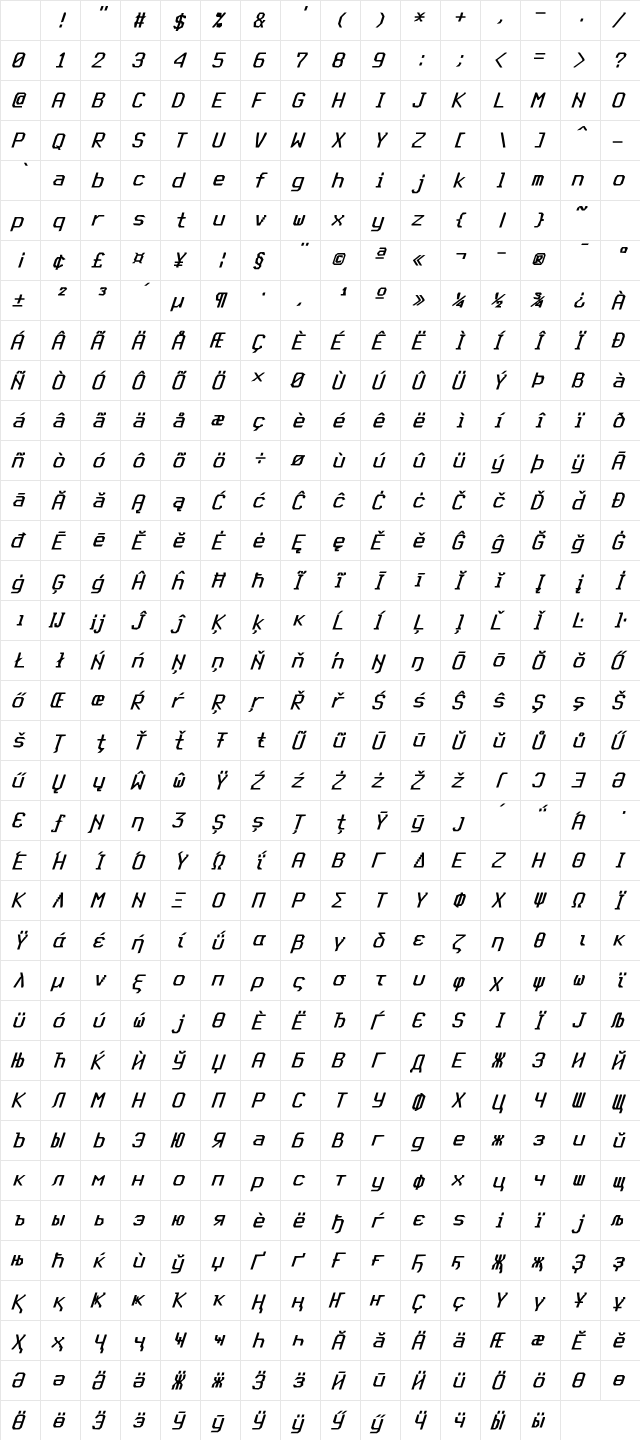
Complete TerminessTTF Nerd Font Mono Bold Italic glyph index. Displaying only characters natively supported by TerminessTTF Nerd Font Mono Bold Italic font.
TerminessTTF Nerd Font Mono uses fixed-width spacing throughout, giving it the structured, systematic character associated with coding environments and technical documentation. The slanted form adds forward momentum and visual energy. Its bold stroke weight gives it real presence on the page.